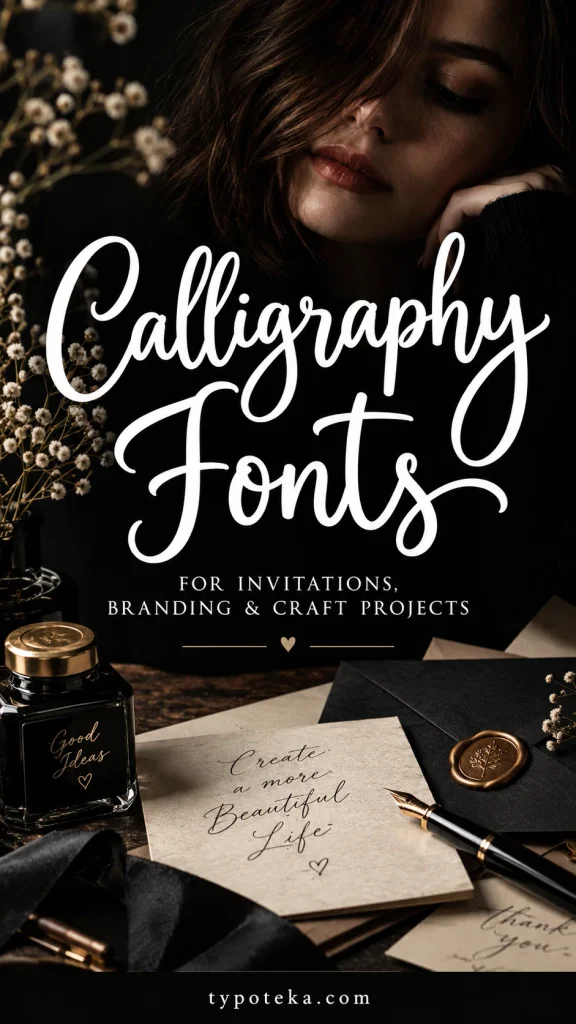
Calligraphy Fonts for Invitations
Calligraphy Fonts for Invitations, Branding & Craft Projects
Calligraphy is one of the few lettering styles that works equally well on a wedding invitation, a coffee bag, and a vinyl-cut sign — the same flowing strokes just read differently depending on context. This collection brings together 30 calligraphy fonts, from monoline invitation scripts like Elegant Writing and Simply Calligraphy to bold brush lettering such as Black Ink Brush and Velvet Brush.
Some of these lean into ornament and ceremony, others into everyday handwritten warmth on cards and packaging, and a few — like Ronda with its round-letter geometry or Sylvan with its gothic edge — sit somewhere unexpected in between. Whether you’re setting a bridal suite, a boutique logo, or a batch of gift tags, there’s a typeface here built for the job.
MONOLINE SCRIPT
1. Calligraphy Font
Calligraphy is a modern handwritten script built around smooth monoline curves, long vertical ascenders and descenders, and a fluid hand-lettered rhythm. The delicate fountain-pen quality gives it a bespoke signature feel while the strokes stay clean and easy to read.
It suits wedding invitation suites, luxury logo design, feminine branding, romance quote prints, greeting cards, photo watermarks, and stationery. The vector paths also work for Cricut and Silhouette craft SVG projects.
GREETING CARDS
2. Greeting Font
Greeting is a modern handwritten script with elongated loops, dramatic ascenders, and a sweeping tail along the baseline. The result feels sophisticated but personal — a touch of high-end warmth on names, titles, and logos.
Use it for wedding invitation suites, greeting cards, feminine logo design, romantic quote prints, boutique branding, and event stationery, as well as Cricut and Silhouette craft SVG work.
BOHO SCRIPT
3. Barbie Boho Font
Barbie Boho is a calligraphy script with sweeping looped ascenders, playful baseline swashes, and soft hand-drawn curves. Its light, romantic flow gives layouts a free-spirited, bohemian elegance rather than strict formality.
A natural fit for boho wedding stationery, bridal shower invites, feminine boutique branding, chic logo design, romantic quote art, and social media graphics. It also converts cleanly for Cricut and Silhouette craft SVG creations.
WEDDING CALLIGRAPHY
4. Bela Rubrik Font
Bela Rubrik is a calligraphy font built on dramatic looping swashes, graceful teardrop terminals, and high-contrast curves. Its dancing baseline and fluid stroke transitions make names and titles look handcrafted rather than typeset.
Best suited to luxury wedding stationery, bridal shower invitations, romantic quote prints, boutique logotypes, greeting cards, and branding work, with support for Cricut and Silhouette craft SVG projects.
CLASSROOM SCRIPT
5. School Handmade Font
School Handmade is a modern calligraphy script with smooth monoline loops, tall friendly ascenders, and flowing cursive connections that recall classic chalkboard lettering. Its organic rhythm keeps things legible while feeling genuinely handwritten.
Designed for back-to-school printables, teacher classroom signage, educational worksheets, kids' party invitations, storybook titles, and habit trackers, plus Cricut and Silhouette craft SVG projects.
WEDDING SCRIPT
6. Wedding Font
Wedding is a modern calligraphy script with dramatic swashes, connected letterforms, and delicate curled terminals. Its rhythmic penmanship gives invitations and branding pieces an unmistakably romantic, high-end finish.
Built for wedding invitation suites, bridal shower stationery, save-the-date cards, romantic luxury branding, logo design, photography overlays, and quote prints, as well as Cricut and Silhouette craft SVG work.
ORNATE CALLIGRAPHY
7. Supporty Font
Supporty balances traditional calligraphy with modern expression — delicate curves, intertwined strokes, and ornate decorative swashes throughout the alphabet. The letterforms lean toward luxury and femininity without becoming unreadable.
It works across wedding invitations, deluxe branding, fashion design, customized stationery, packaging, online content graphics, greeting cards, and quote typography.
ROUND LETTERING
8. Ronda Font
Ronda plays with the aesthetics of round-letter calligraphy, giving the alphabet a distinctive circular geometry that sets it apart from the usual flowing scripts. It reads as charming and approachable rather than formal.
A good match for greeting cards, wedding invitations, and decorative lettering projects where you want something recognizable but not overly ornate. Its simplicity makes it versatile across print and digital layouts.
SIGNATURE SCRIPT
9. Sofia Font
Sofia is a modern handwritten script with dramatic looping capitals, smooth thin-to-thick stroke transitions, and a sweeping tail swash. Its organic rhythm gives titles an authentic custom-calligraphy feel.
Ideal for wedding invitation suites, floral branding, boutique logotypes, romantic quote prints, cosmetic packaging, and social media banners, plus Cricut and Silhouette craft SVG projects.
View This Font →
HANDWRITTEN SCRIPT
10. Coffee Blossom Font
Coffee Blossom is an elegant handwritten script with graceful flowing strokes and a charming calligraphic character. It keeps a warm, approachable tone rather than a strictly formal one.
Use it for weddings, logos, branding, invitations, quote graphics, greeting cards, stationery, packaging, and social media designs.
View This Font →
VINTAGE SCRIPT
11. Vintage Alignment Font
Vintage Alignment is a delicate script typeface with fine hairline monoline stems, dramatic entry and exit swashes, and soaring loops that cross fluidly through the letterforms. Its calligraphic rhythm carries a distinctly heritage, period feel.
Well suited to vintage wedding invitation suites, luxury boutique branding, delicate quote prints, letterhead logos, wine label packaging, photographer watermarks, and high-end stationery.
View This Font →
ROMANTIC SCRIPT
12. Alphabet Font
Alphabet is a modern calligraphy font with slender high-contrast stems, soaring ascenders, sweeping swash descenders, and playful heart-shaped loop embellishments. The decorative details give it a heartfelt, romantic character.
A strong choice for wedding stationery suites, Valentine's Day designs, boutique logo marks, greeting cards, and aesthetic quote graphics, as well as Cricut and Silhouette craft SVG projects.
View This Font →
LUXURY SCRIPT
13. Quinetta Font
Quinetta is an elegant modern calligraphy font with flowing strokes, graceful curves, and refined letterforms. It carries a sense of luxury and decorative flair without tipping into excess.
Designed for wedding invitations, branding, upscale packaging, and editorial layouts where a romantic, classy typographic voice is needed.
View This Font →
GOTHIC CALLIGRAPHY
14. Sylvan Font
Sylvan is a handcrafted calligraphy font with a touch of enchantment and gothic elegance in its letterforms. It sits somewhere between romantic script and darker, more atmospheric lettering.
Works for wedding invitations, fantasy book covers, branding, and print-on-demand products that need a magical, artisanal quality.
View This Font →
VINTAGE DISPLAY
15. Antique Broken Font
Antique Broken is a cursive display font with an artistic, hand-drawn character and a distinctly vintage feel. Its flowing, slightly irregular letterforms give headlines personality and warmth.
Suited to wedding invitations, decorative calligraphy pieces, seasonal designs for Christmas and Easter, fashion banners, and headline lettering that needs to hold attention.
View This Font →
OUTLINE SCRIPT
16. Barbie Hailey Font
Barbie Hailey Outline is a calligraphy-style script outline font with a set of alternate characters. The outlined letterforms blend calligraphic structure with a graceful, romantic aesthetic.
Use it for branding, wedding invitations, logos, labels, packaging, blog headers, posters, and social media or Instagram graphics built around romantic themes.
View This Font →
ELEGANT SCRIPT
17. Driest Font
Driest is an elegant, expressive script with smooth flowing strokes and stylish letterforms that balance modern refinement against traditional calligraphy. Its natural rhythm reads especially well at larger sizes.
Effective for logos, branding, wedding invitations, stationery, packaging, fashion design, posters, social media graphics, quote prints, and editorial headlines, signatures, and short phrases.
View This Font →
BRIDAL SCRIPT
18. Florenza Font
Florenza Script is a timeless calligraphy font with carefully crafted letterforms, smooth connections, and refined swashes. The handwritten feel works equally well in modern and classic layouts.
Designed for wedding stationery, luxury branding, feminine logos, product packaging, social media graphics, and inspirational quote designs.
View This Font →
BRANDING SCRIPT
19. Esmeralda Font
Esmeralda is an elegant handwritten script combining graceful curves with smooth flowing connections. Its clean, modern calligraphy style keeps readability high while retaining a natural handwritten quality.
Well suited to logos, wedding invitations, branding, packaging, social media, beauty products, signature marks, and feminine design work, from premium brand identities to personal stationery.
View This Font →
MONOLINE SCRIPT
20. Elegant Writing Font
Elegant Writing is a graceful monoline script inspired by classic fountain-pen calligraphy and minimalist penmanship, with flowing loops, tall ascenders, and an effortless handwritten rhythm. The sleek lines give it an airy, understated elegance.
A good fit for high-end branding, event stationery, and crafting details — the vector paths are smoothed for clean cutting and weeding on Cricut, Silhouette, and similar machines.
View This Font →
LUXURY SCRIPT
21. Ever Grace Font
Ever Grace is a sophisticated script drawing on modern calligraphy and refined handwritten lettering, with smooth curves, delicate connections, and well-balanced characters. The overall impression is luxurious and romantic.
Built for wedding invitations, feminine branding, boutique logos, cosmetic packaging, fashion editorials, and social media graphics, with ligatures, swashes, numerals, punctuation, and multilingual support.
View This Font →
BRUSH LETTERING
22. Black Ink Brush Font
Black Ink Brush is a handmade brush font made of energetic textured strokes, bold ink splatters, and organic letterforms. It draws on both oriental calligraphic art and modern urban street aesthetics for a raw, expressive look.
Ideal for action movie posters, sports apparel, gaming titles, album covers, streetwear logos, and edgy branding where headlines need commanding, high-energy presence.
View This Font →
THIN SCRIPT
23. Lunar Melody Font
Lunar Melody is an elegant, whimsical thin script with handcrafted swoops, sweeping letterforms, and a subtle organic wiggle. The effect is ethereal and modern rather than traditionally formal.
Use it for delicate wedding invitations, dreamy branding, boho logos, product packaging, social media quote graphics, and editorial layouts.
View This Font →
MODERN CALLIGRAPHY
24. Simply Calligraphy Font
Simply Calligraphy is a fluid handwritten script that captures a modern, sophisticated take on calligraphic lettering. Its flowing letterforms stay elegant without heavy ornamentation.
A strong choice for luxury wedding stationery, intimate event branding, high-end editorial signatures, and lifestyle photography overlays.
View This Font →
MONOLINE DISPLAY
25. Endless Holidays Font
Endless Holidays is a typography collection blending elegant calligraphy with a bold monoline style, including ligatures and stylistic alternates. It manages a luxurious, timeless feel while staying flexible across design directions.
Suited to branding, fashion, weddings, invitations, logos, headlines, packaging, and social media design, from modern layouts to vintage-styled pieces.
View This Font →
BRUSH CALLIGRAPHY
26. Velvet Brush Font
Velvet Brush is a luxurious brush calligraphy font with bold expressive strokes and dramatic swashes. Each letter carries the rich thick-and-thin contrast of a real brush pen, giving it an artistic but polished finish.
Best used for wedding stationery, luxury branding, logos, greeting cards, and any design that needs a statement-making signature look.
View This Font →
HOLIDAY SCRIPT
27. Simple Calligraphy Font
Simple Calligraphy is a festive typeface with decorative elements and a whimsical flair that captures the spirit of the holiday season. It brings a cheerful, nostalgic tone to short pieces of lettering.
Perfect for greeting cards, gift tags, and holiday-themed projects. The font is PUA encoded, so all glyphs and ligatures are easy to access.
View This Font →
HANDWRITTEN SCRIPT
28. Natasya Font
Natasya is a flowing handwritten font that pairs grace with expressiveness. Its characters carry an artful elegance rooted in traditional calligraphy while remaining practical to set.
A good option for projects that need a timeless, sophisticated touch — stationery, branding, quote prints, and any design that benefits from a refined handwritten flourish.
View This Font →
HANDWRITTEN SCRIPT
29. Question Font
Question is a handwritten script with fluid, expressive letterforms and a calligraphic foundation. The characters are drawn with enough variation to feel written rather than constructed.
Use it where a design calls for elegant handwriting — invitations, cards, branding marks, quote graphics, and decorative headline lettering.
View This Font →
CRAFT SCRIPT
30. Olivia Scatcer Font
Olivia Scatcer is a script font with a light, magical quality and a clear touch of elegance in its letterforms. It reads as delicate and personal rather than heavy or formal.
Works well for Instagram and social graphics, calligraphy-led DIY projects, personal stationery, and decorative lettering across craft work.
View This Font →
Conclusion
This collection spreads across the whole calligraphic range on purpose — Wedding Font and Vintage Alignment suit formal and heritage stationery, while Black Ink Brush and Barbie Boho fit streetwear graphics and modern craft branding. If none of these quite match the tone you need, our Script & Handwritten Fonts collection covers looser, more casual lettering, and our Old English & Blackletter Fonts section handles the heavier historical end of hand-lettering.